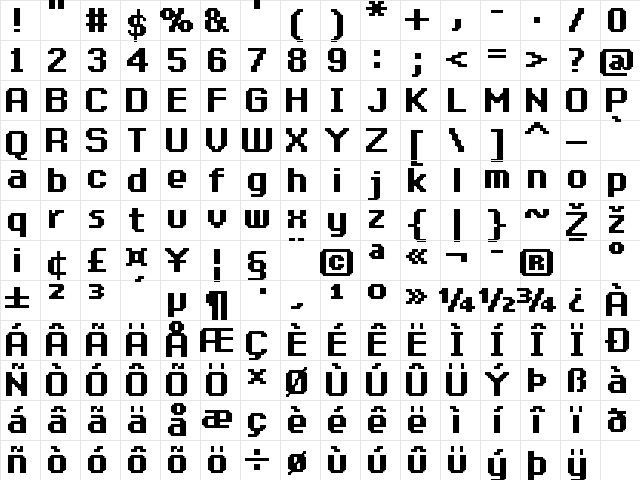
FFF Protege Bold Extended Regular
Foundry: Fonts For Flash
Designer: Fonts For Flash
Design Context for FFF Protege Bold Extended
FFF Protege Bold Extended is a composed and adaptable typeface that performs quietly and consistently across a wide range of design contexts. Its bold stroke weight gives it real presence on the page.